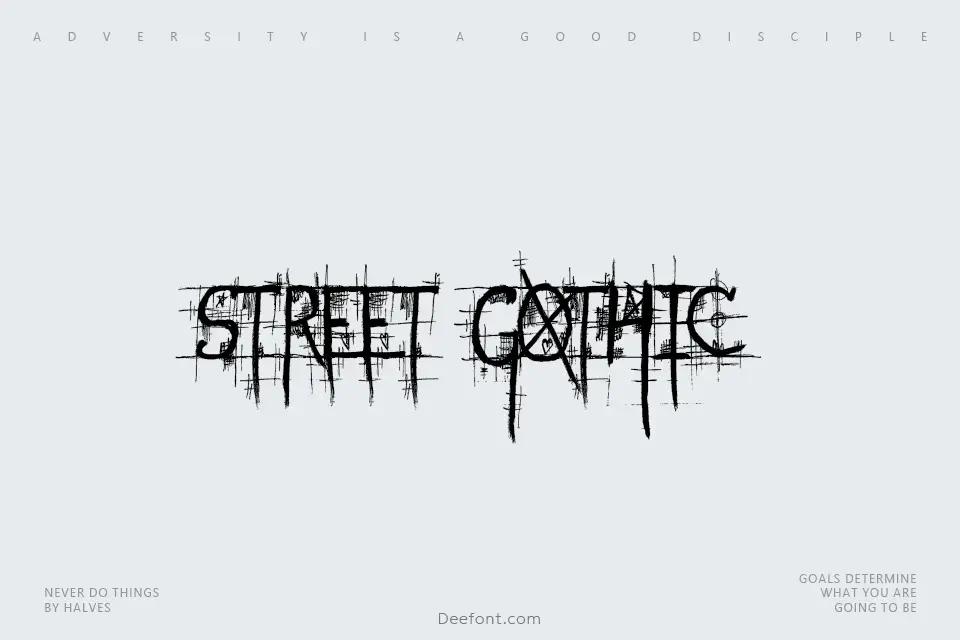
Street Gothic Font
Street Gothic is a striking display typeface crafted with distressed letterforms that evoke street graffiti and horror aesthetics. Featuring jagged, irregular strokes and a chaotic, trash-inspired design, this font delivers an edgy, satanic energy ideal for horror movie posters, Halloween packaging, graffiti-style logos, video game covers, and urban merchandise branding. The uppercase-only configuration ensures bold headline presence while the raw, gritty character makes it perfect for punk-themed projects, heavy metal album artwork, and any design requiring dark, menacing visual impact with authentic street credibility.